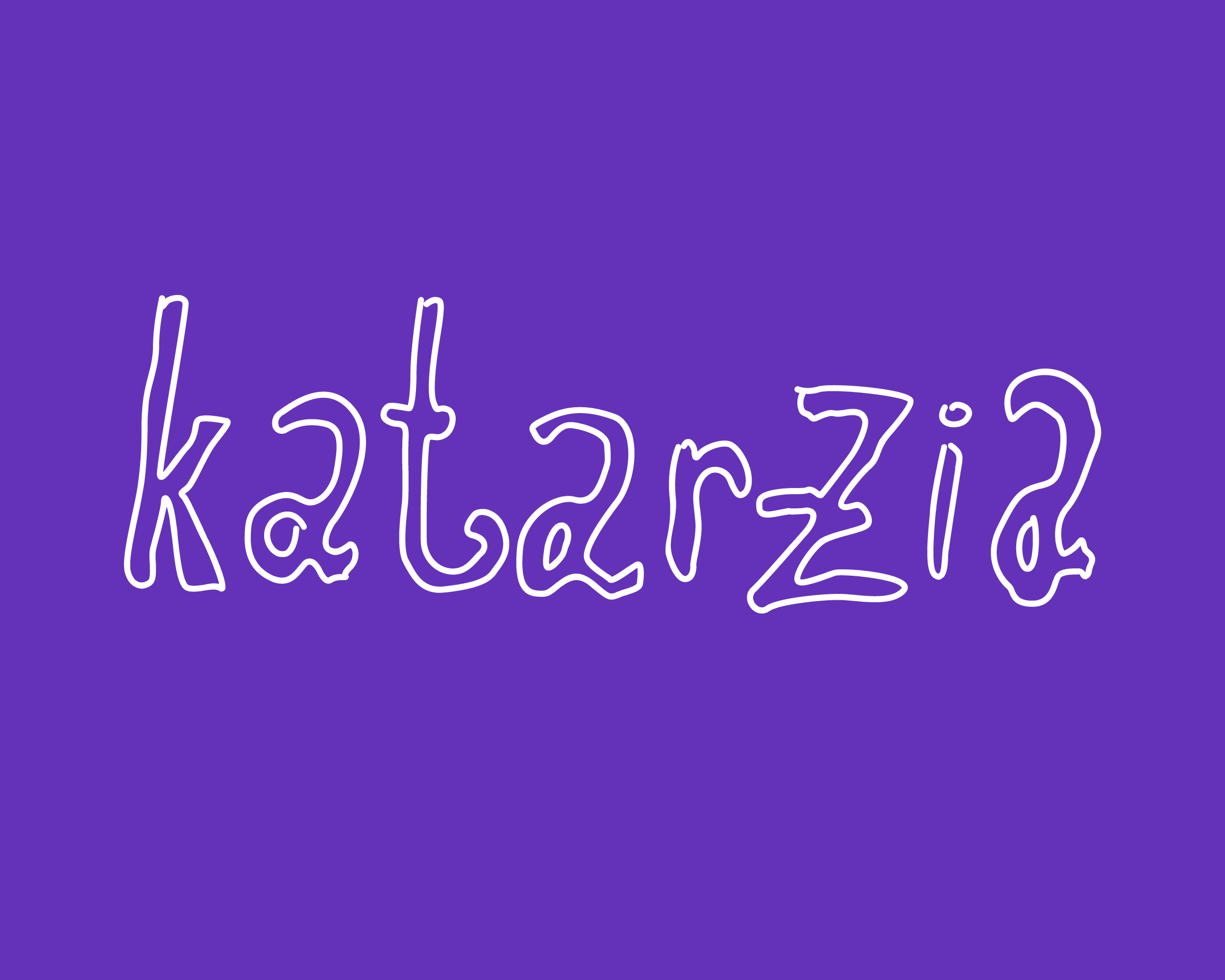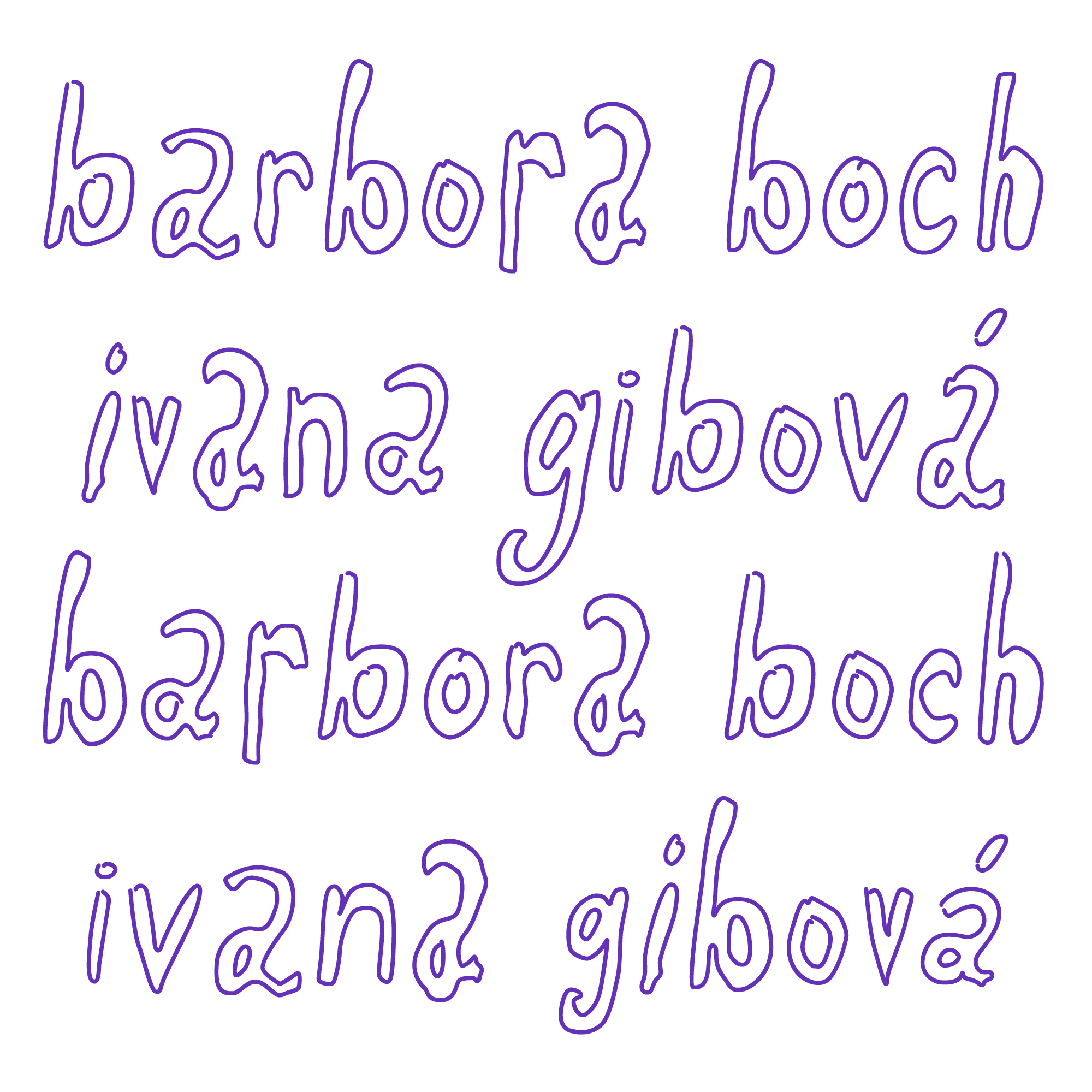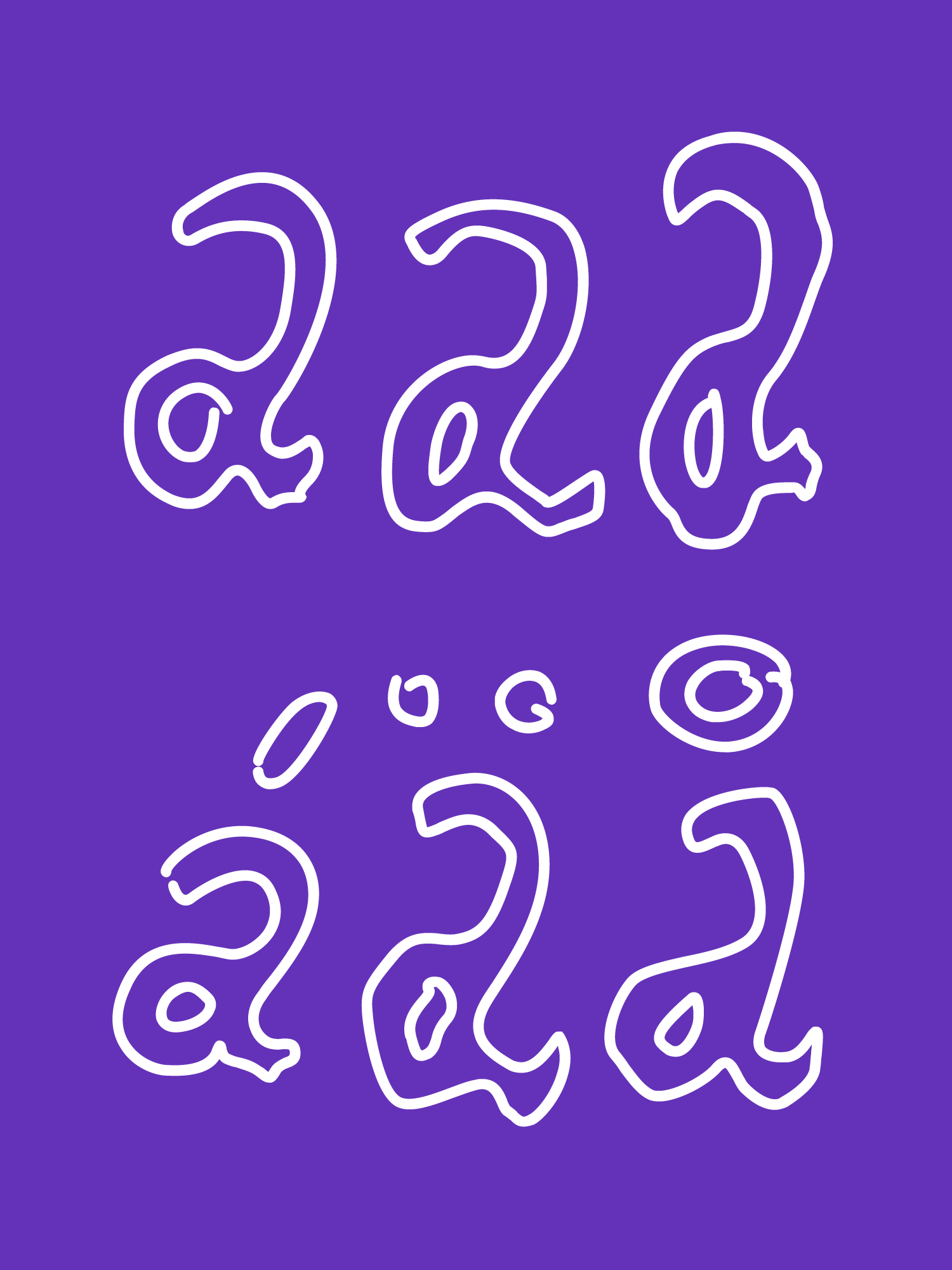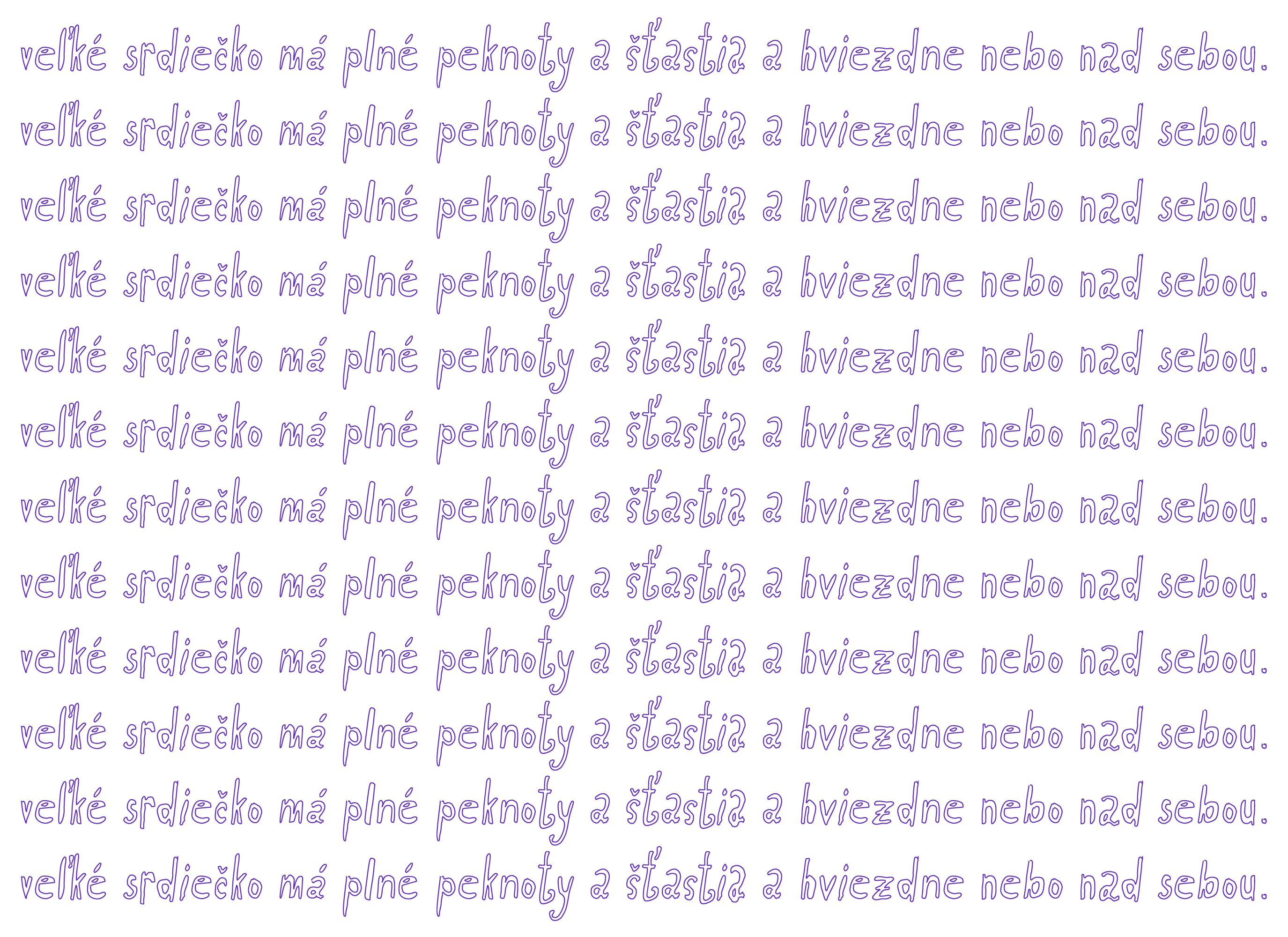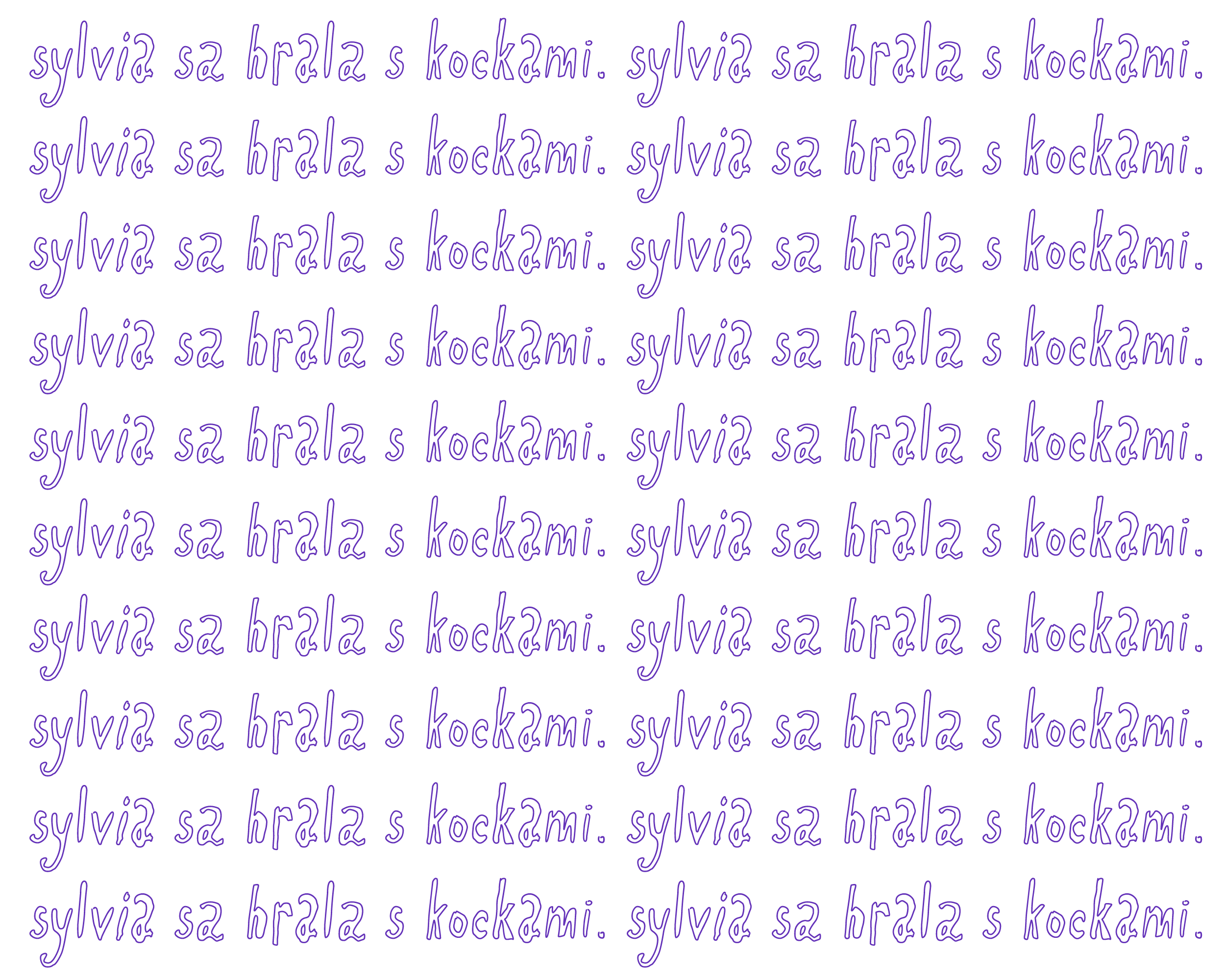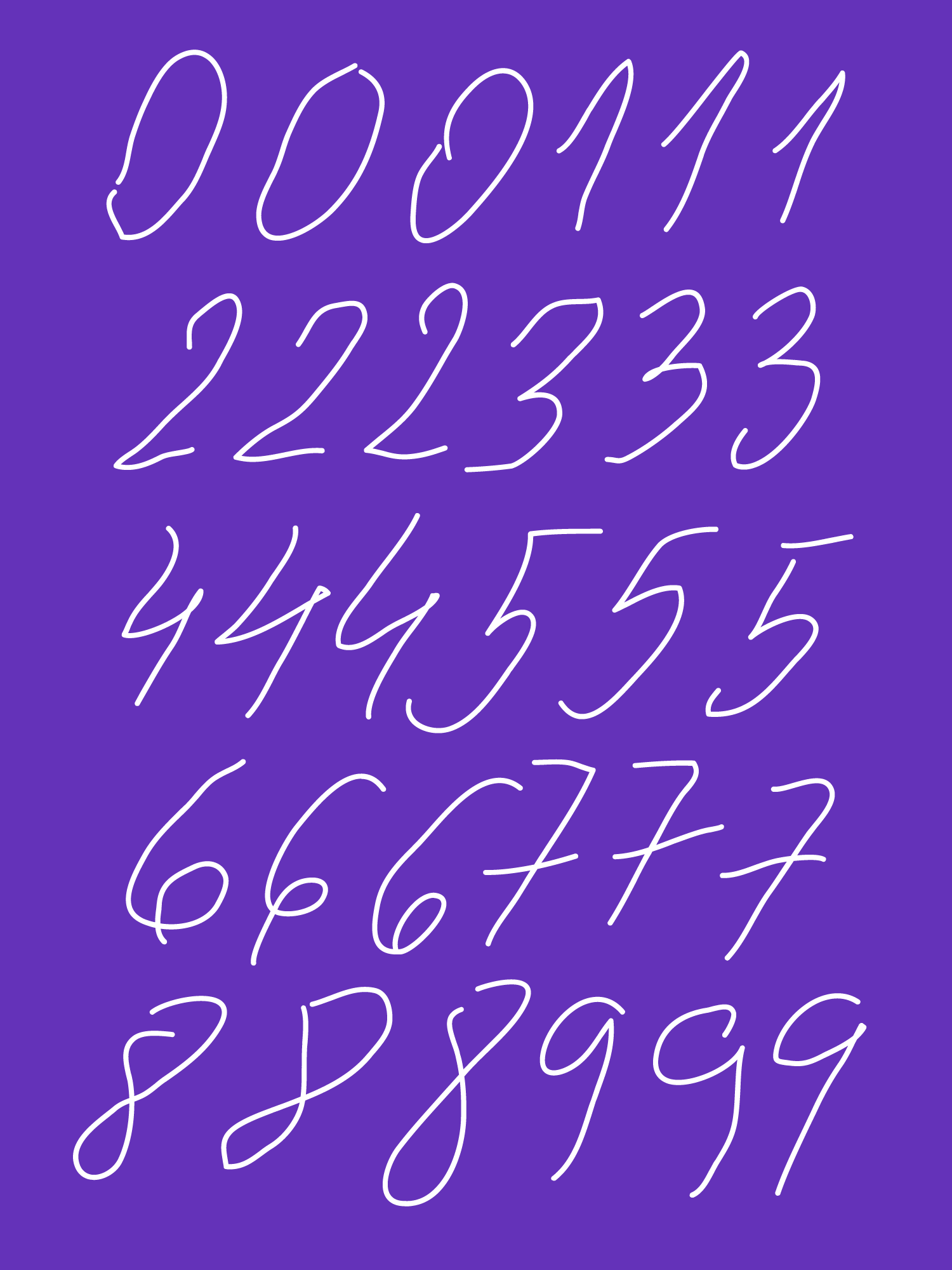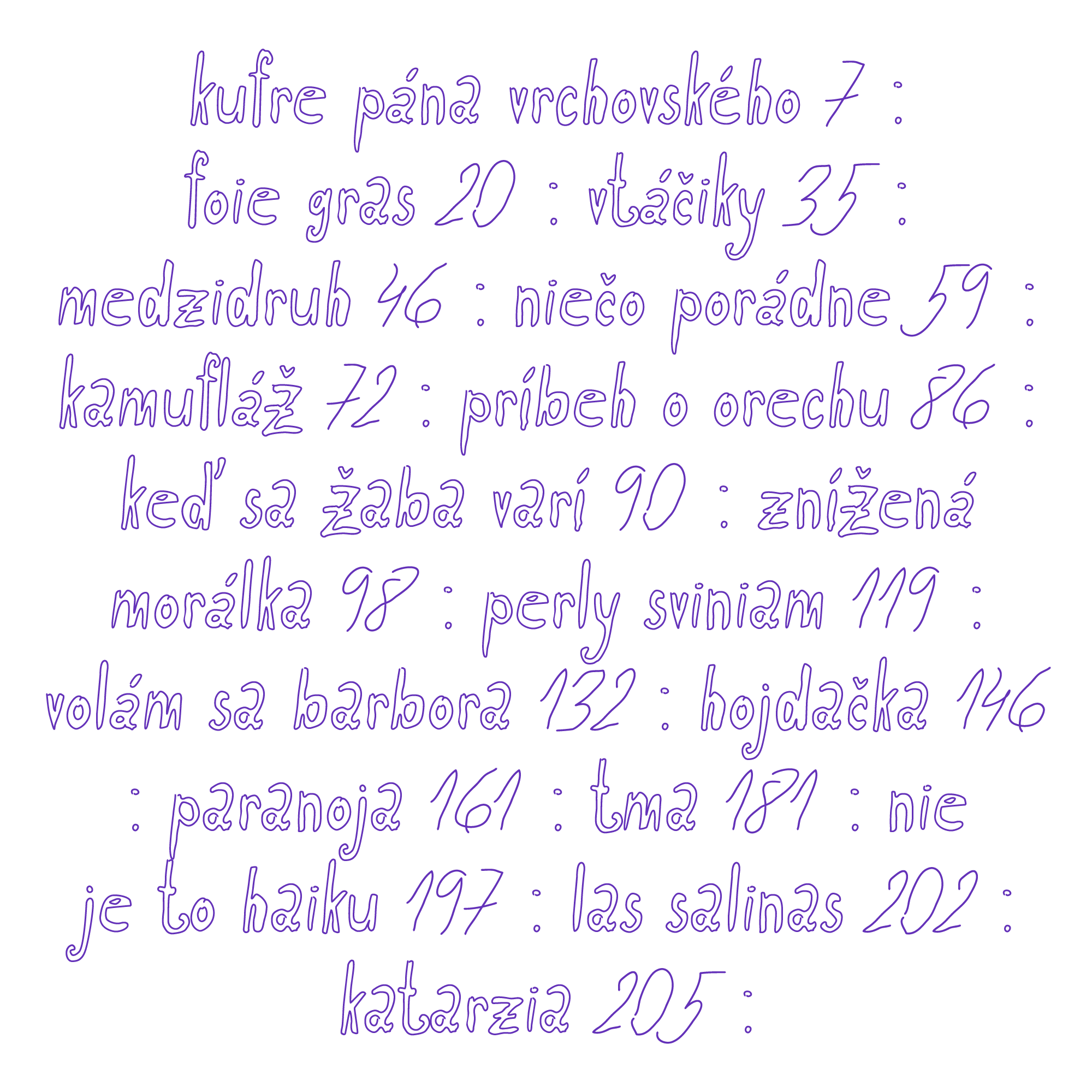
Katarzia
An expressive display type designed for the book Barbora, Boch & Katarzia from Ivana Gibová. The type is created according to the handwriting of the author of the book.